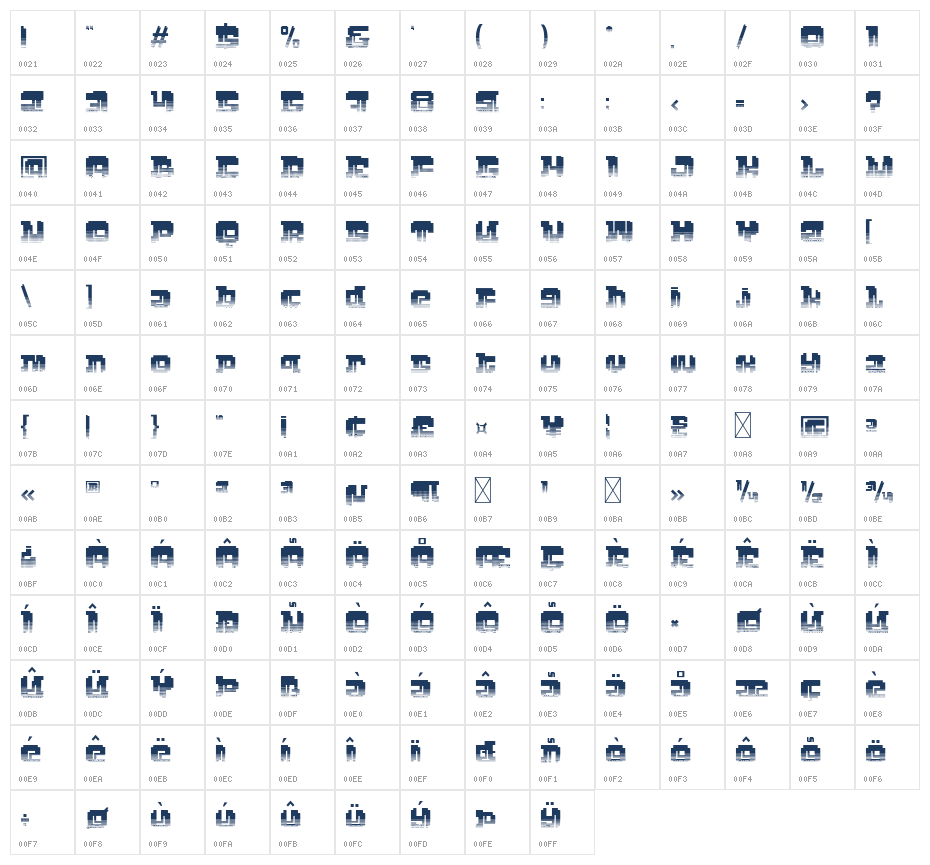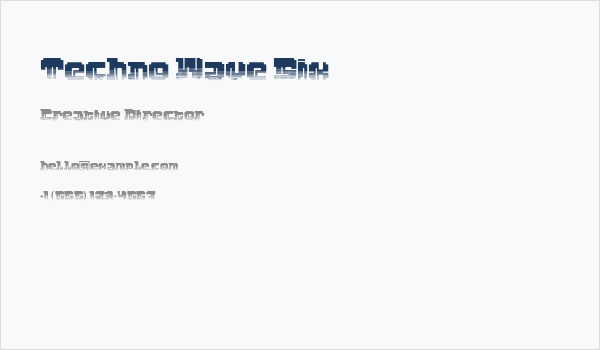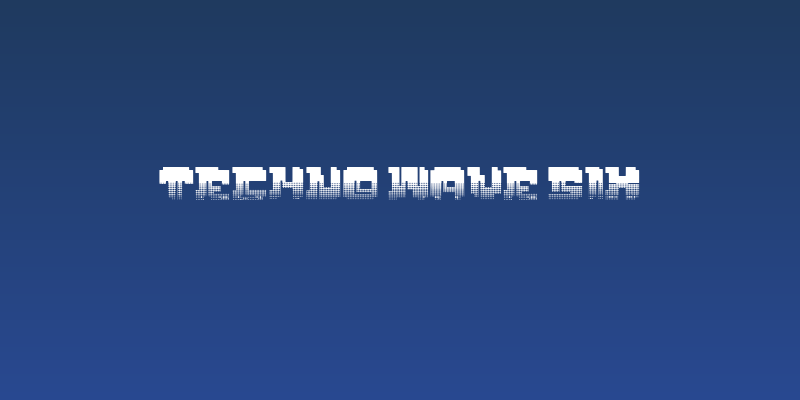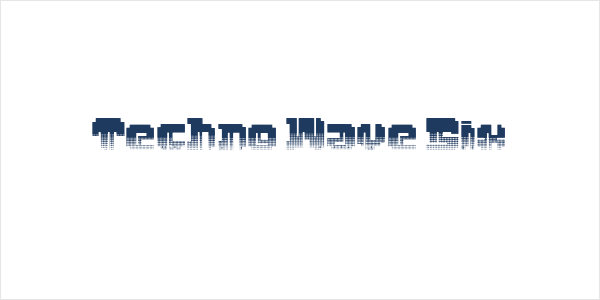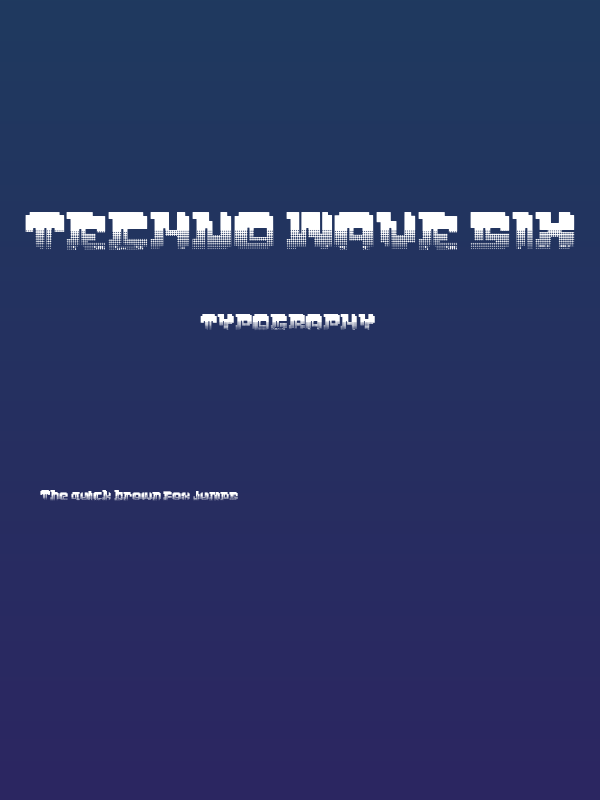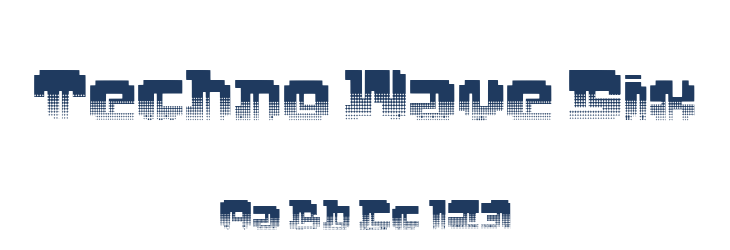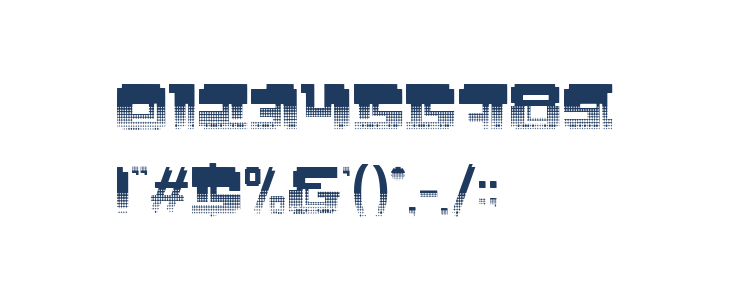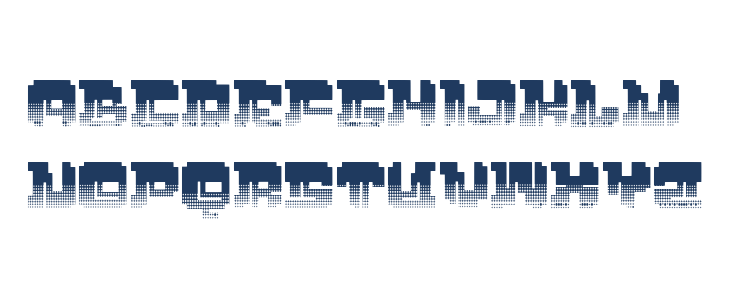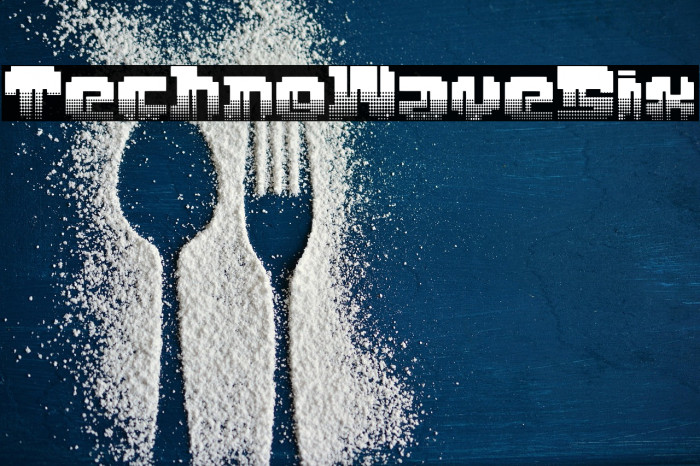
Techno Wave Six Font
Techno Wave Six Description
Pixelated, blocky, digital-style font with a pixel art aesthetic, featuring uppercase and lowercase letters, numbers, and symbols.
| Overall Style | Retro, Digital, Pixel Art |
| Use Case | Headlines, Titles, Digital displays, Video game interfaces |
| Author | Fonts by Julieta Ulanovsky |